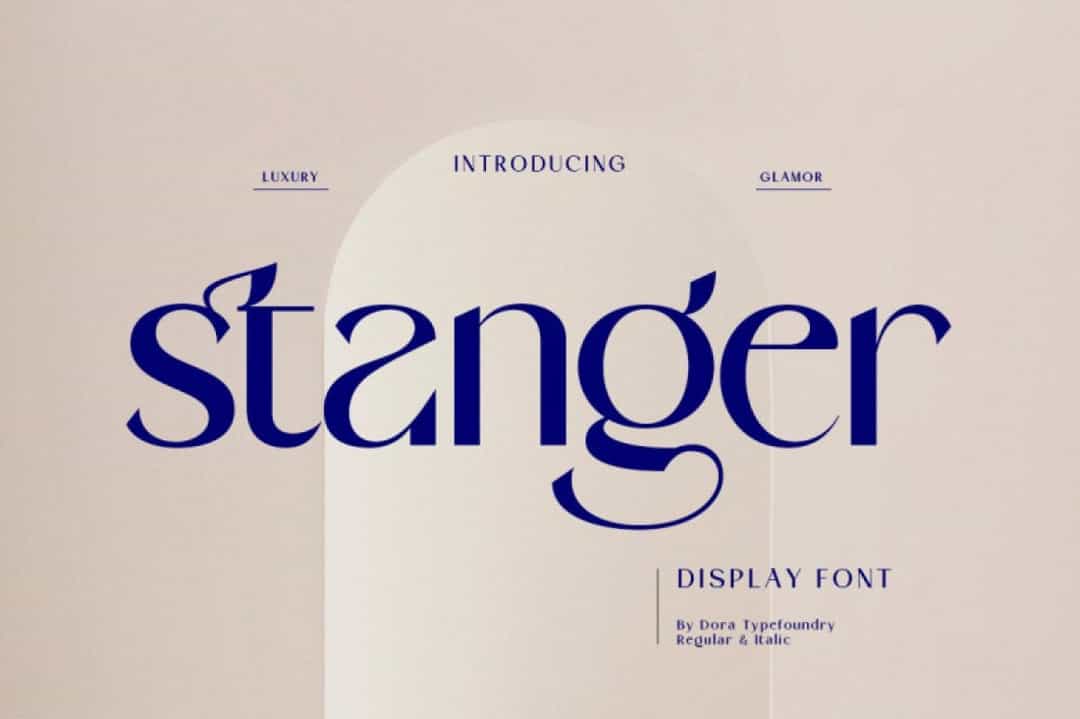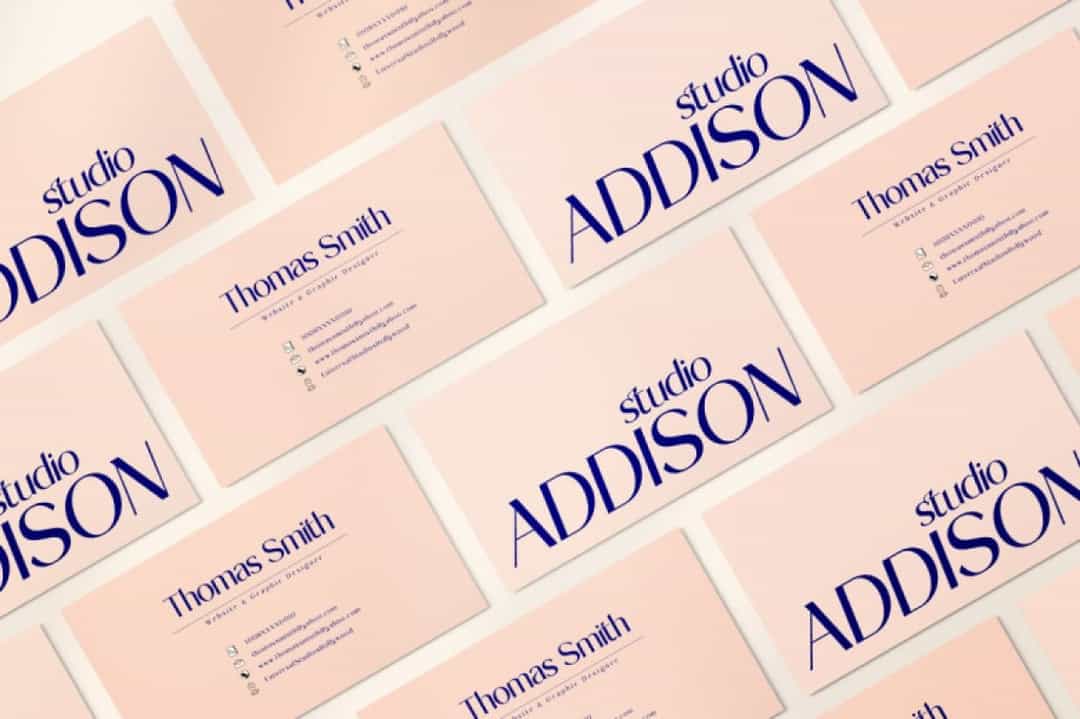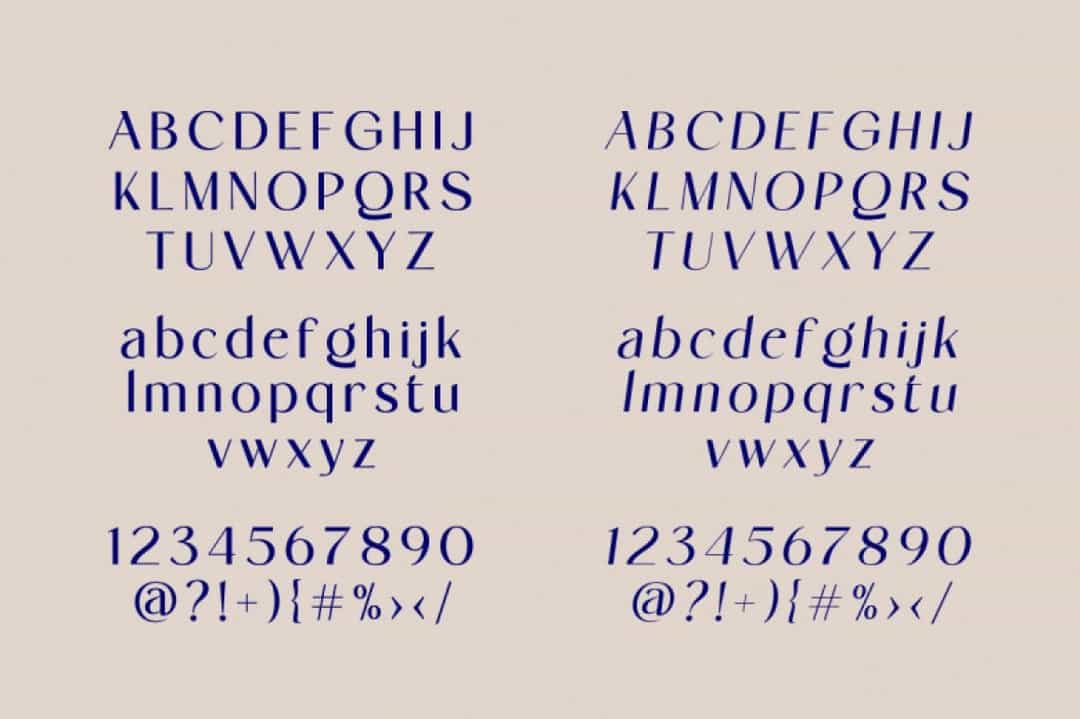
Stanger font is a minimalist style font featuring basic display fonts with elegant visuals that combine soft curves and beautiful ligatures for soft visuals and pleasing curves. A versatile font, available both small and large sizes. Ideal for use as headlines as well as logos for logo design projects, labels magazines branding projects design homeware packaging for products mugs cups posters quotes etc etc